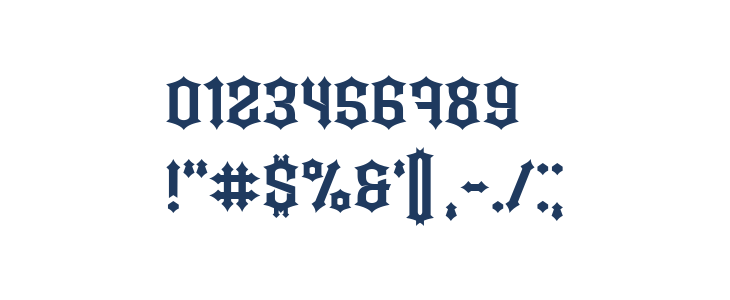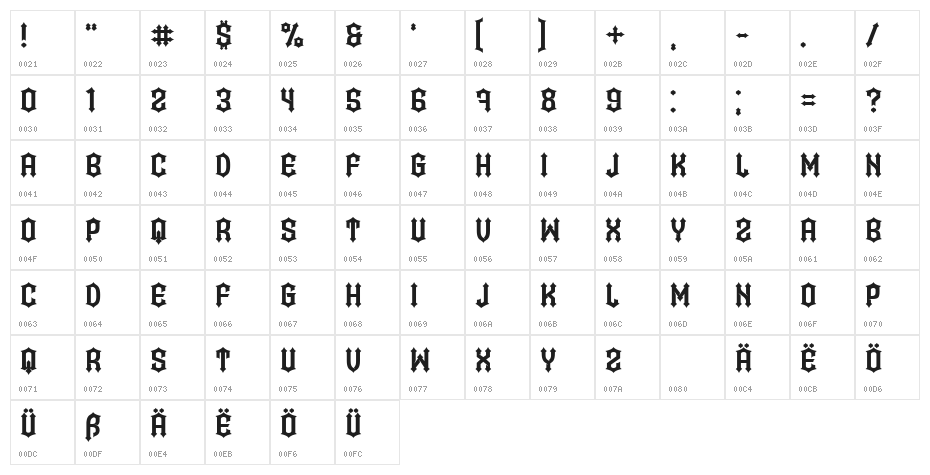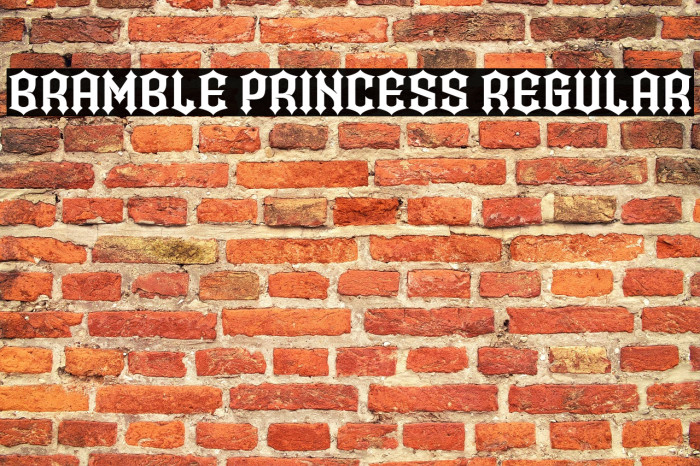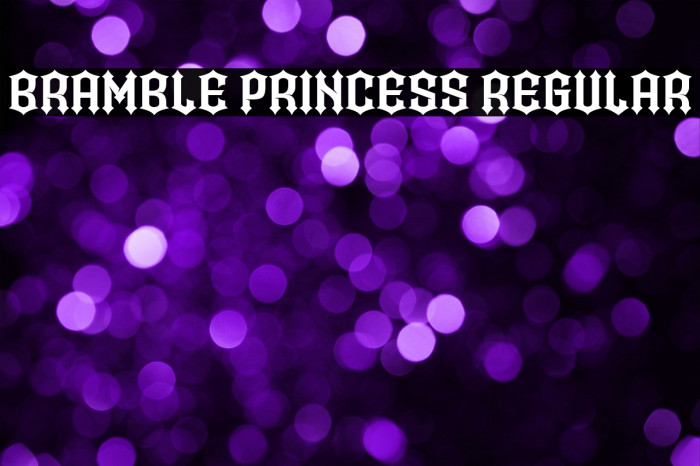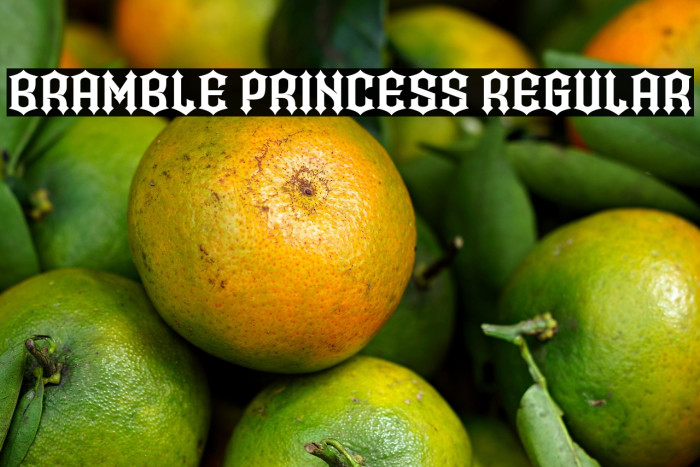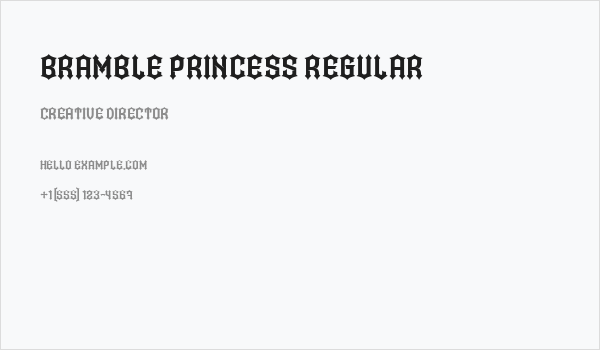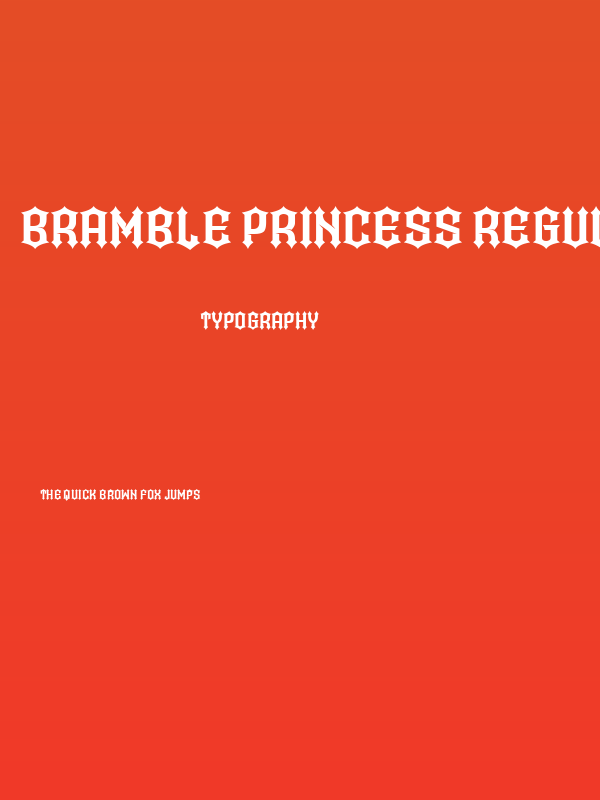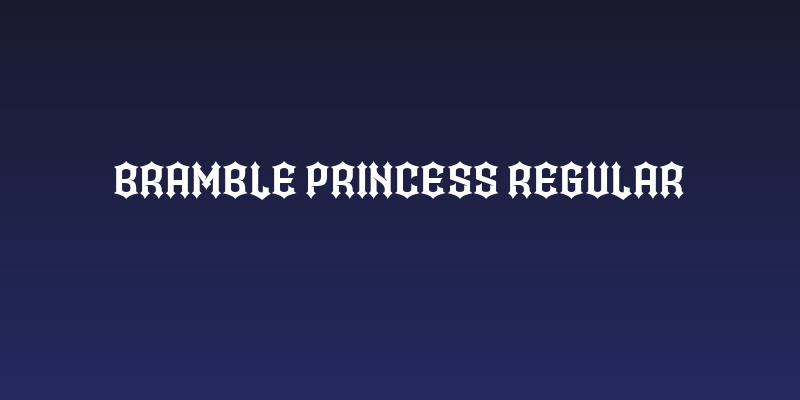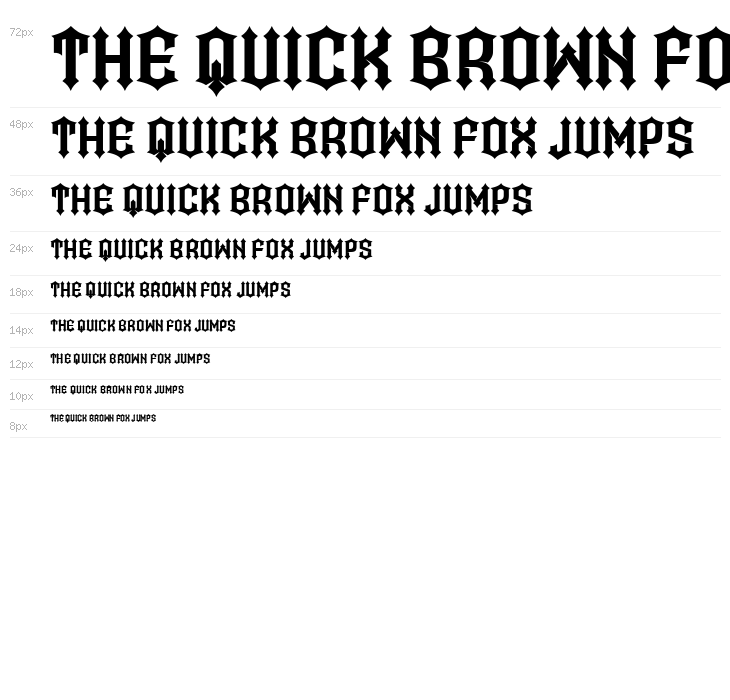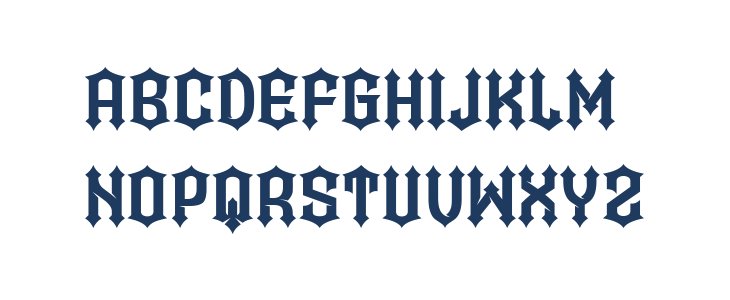
Bramble Princess Regular Font
Bramble Princess Regular Description
This font features a bold, decorative style reminiscent of medieval or gothic script. The characters are sharply angular with pointed serifs and intricate detailing, giving them a dramatic and ornate appearance. The uppercase and lowercase letters maintain a consistent design, with a strong emphasis on vertical lines and symmetrical shapes. The numbers and special characters follow the same stylistic cues, ensuring a cohesive look across all glyphs. This font's unique design makes it stand out, ideal for projects that require a touch of historical or fantasy flair.
| Proposed Projects | Ideal for fantasy-themed designs, book covers, posters, and branding that requires a dramatic and historical touch. |